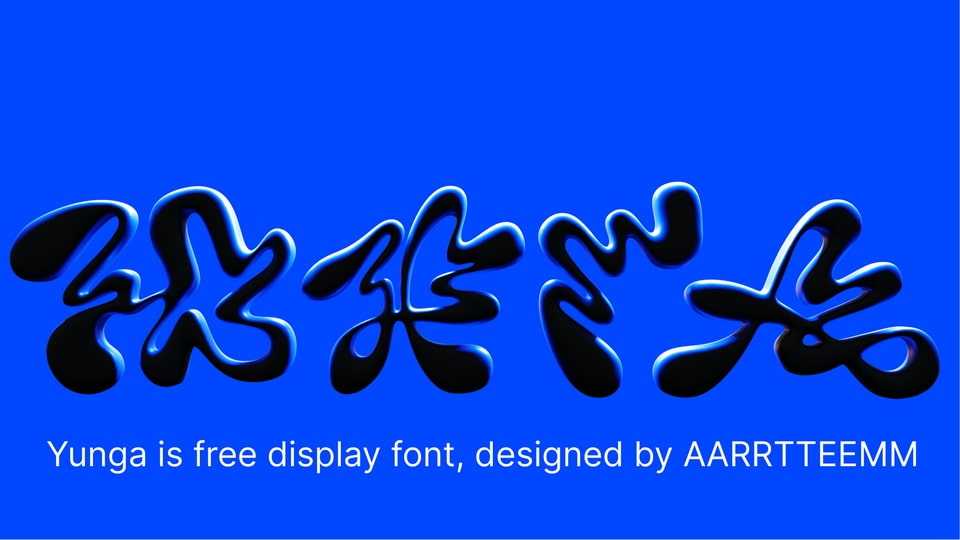
Download Yunga font, an experimental display typeface with a unique personality. With its playful and quirky look Yunga font is ideal for branding, eye-catching posters, packaging and any project that needs a modern twist.
Designer: Artem Voroshnin